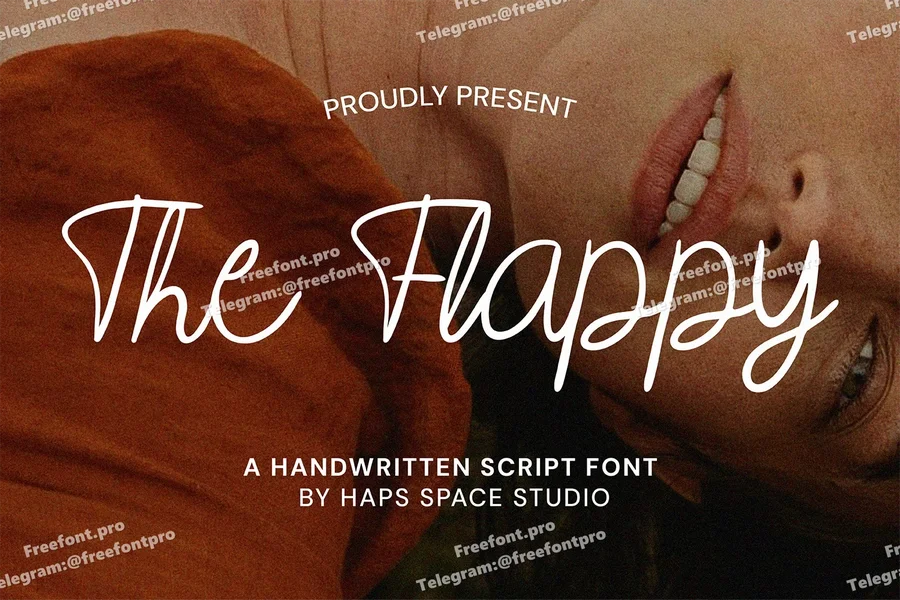
The Flappy Playful Handwritten
The Flappy is a playful handwritten script font that brings a sense of warmth, freedom, and personal touch to your creative work. Its smooth, curvy strokes make it ideal for projects that need a friendly and approachable vibe — from branding to social media content.
Natural and casual handwriting style
Smooth curves and well-balanced flow
Uppercase & lowercase
Easy to read yet stylish
Unique Letterforms